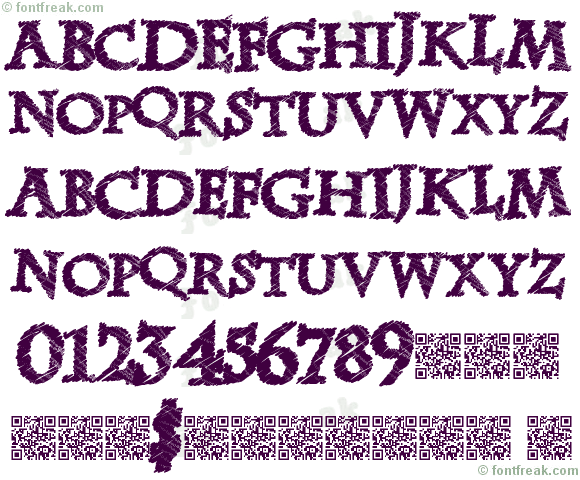
ZebraDisco
About ZebraDisco
ZebraDisco by XEROGRAPHER FONTS is a captivating display font that showcases a unique blend of creativity and flair. This font falls into the decorative category and is characterized by its striking stroke weight and texture, reminiscent of a playful, hand-crafted style. The visual characteristics include a distinctive zigzag pattern that gives each letter an energetic and dynamic appearance. The contrast between thick and thin lines adds depth, while the carefully spaced characters ensure legibility, making it suitable for a variety of applications.
The ZebraDisco font is ideal for a range of creative projects. Its vibrant and eye-catching style makes it a perfect choice for event posters, particularly those related to music festivals or dance parties. Additionally, it can add a unique touch to branding materials for businesses in the entertainment sector, such as nightclubs or bars. Wedding invitations that aim for a fun and unconventional aesthetic can also benefit from this font, as it conveys a sense of celebration and joy. Moreover, ZebraDisco is well-suited for social media graphics, appealing to content creators looking to engage their audience with lively visuals.
The target audience for ZebraDisco includes graphic designers, small business owners, and content creators who seek to stand out in their respective fields. This font allows for creative expression while maintaining readability, making it a versatile tool for various design needs.